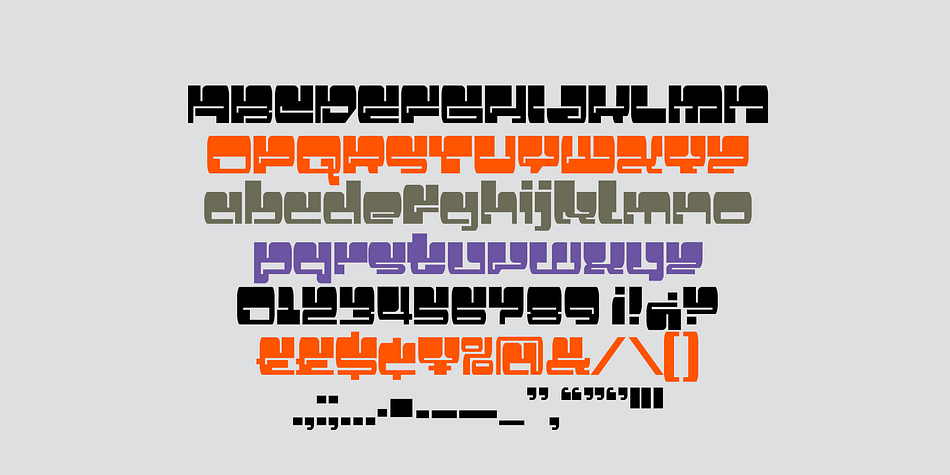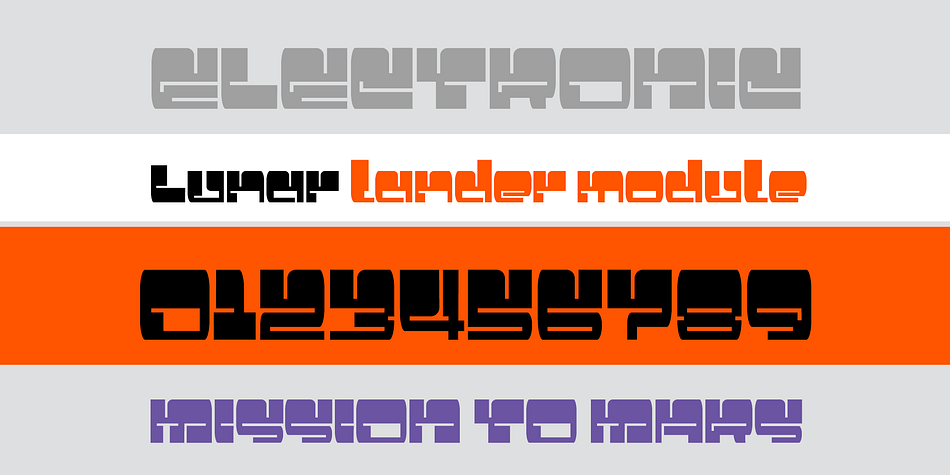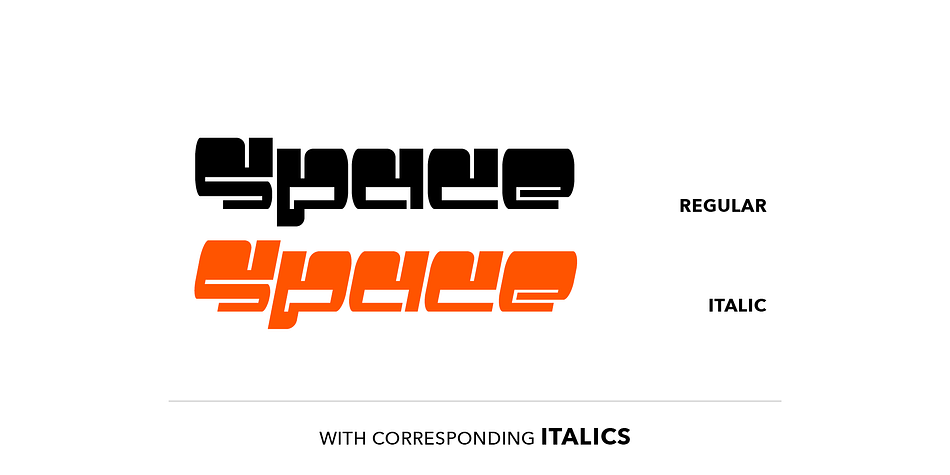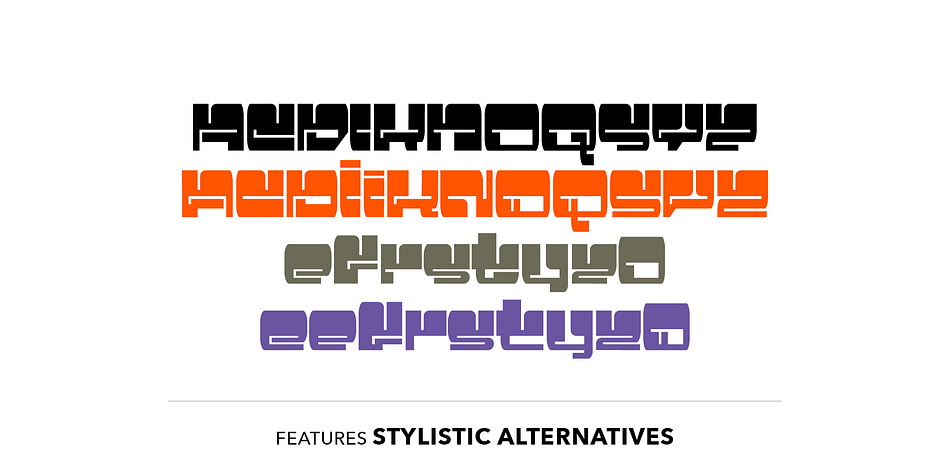
Designed by Craig Stainton, SB Space Ape is a display, hand display and novelty font family. This typeface has two styles and was published by SelfBuild Type Foundry.
SB Space Ape is an blocky, retrofuture style display font.